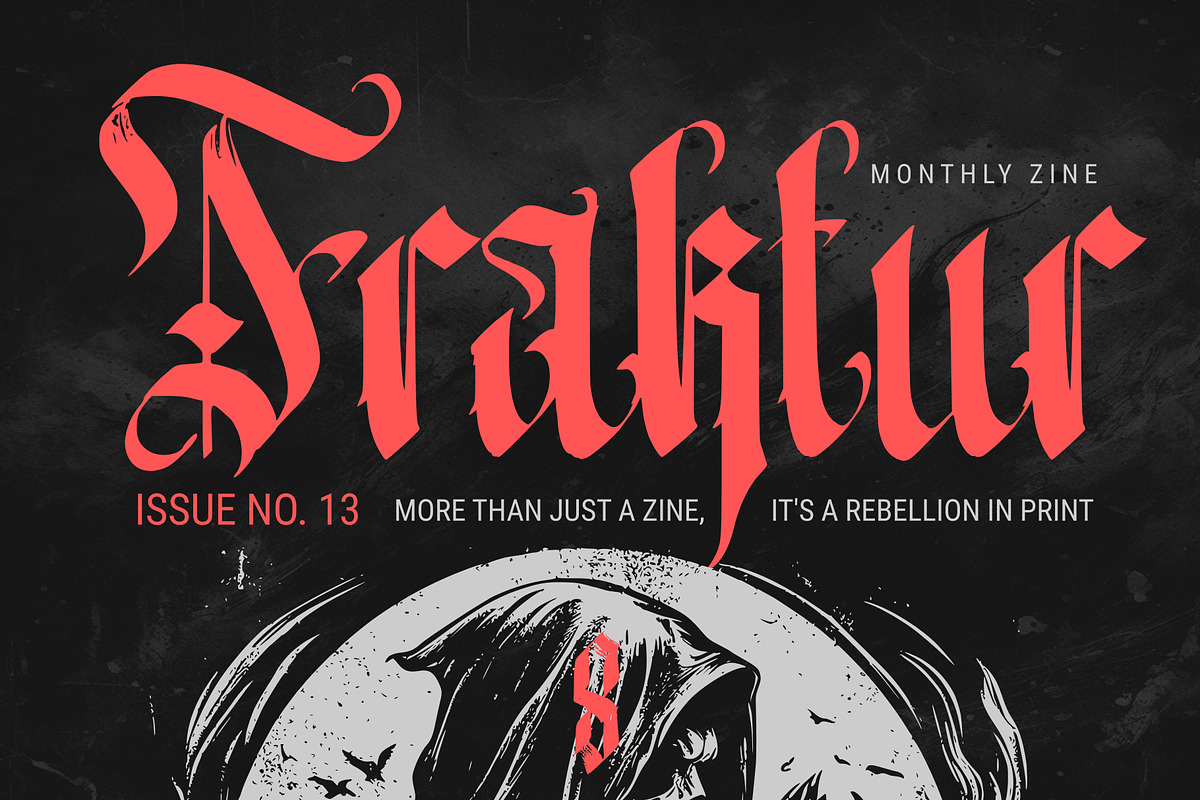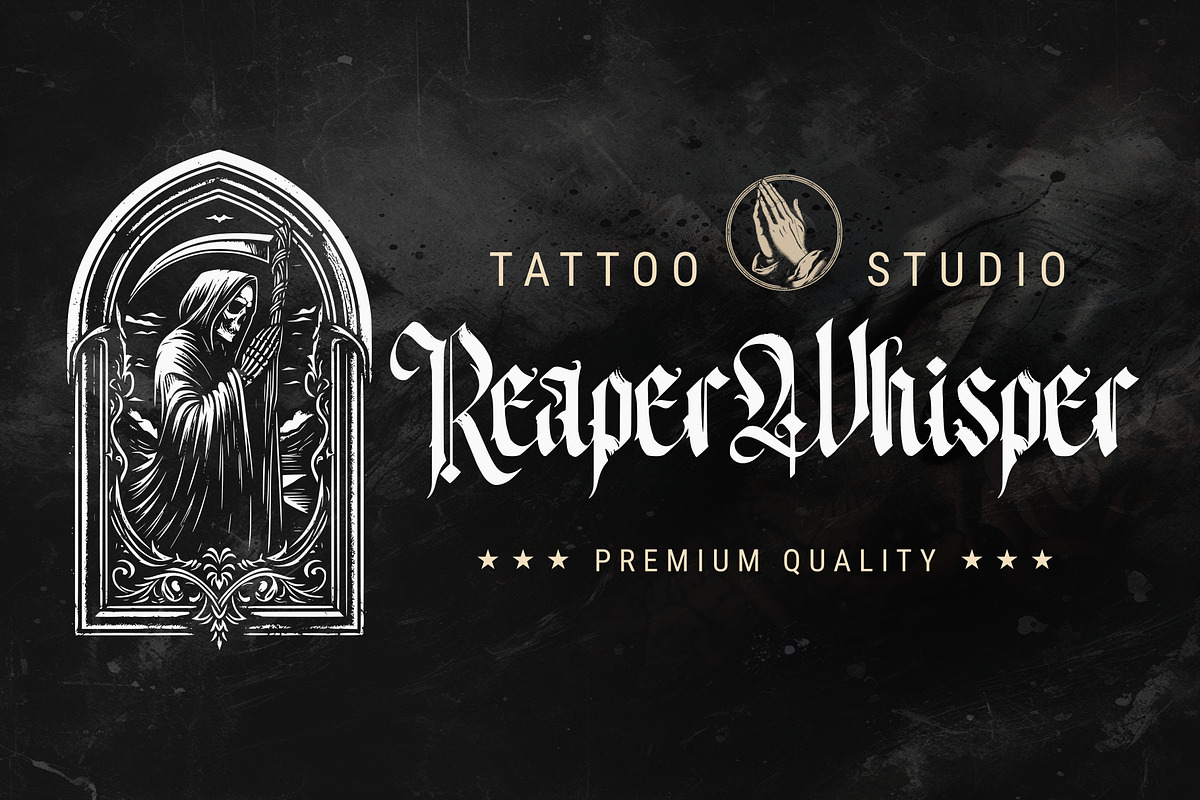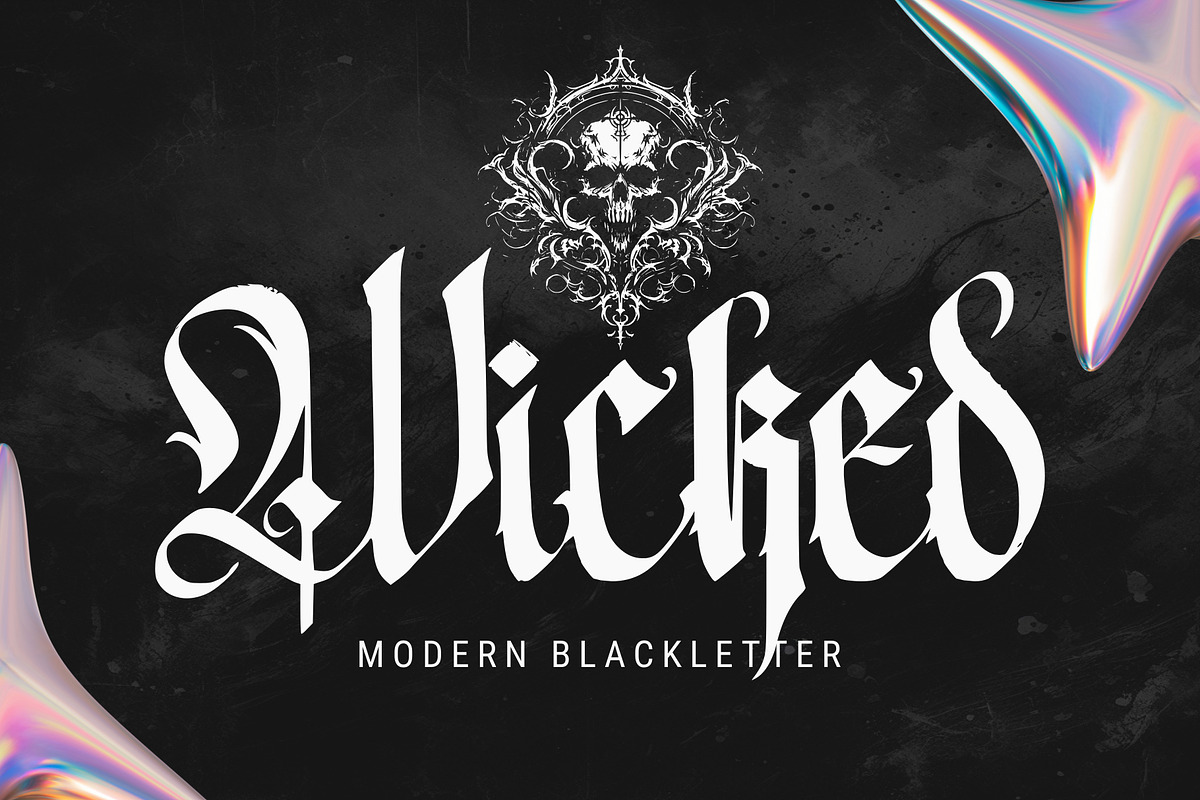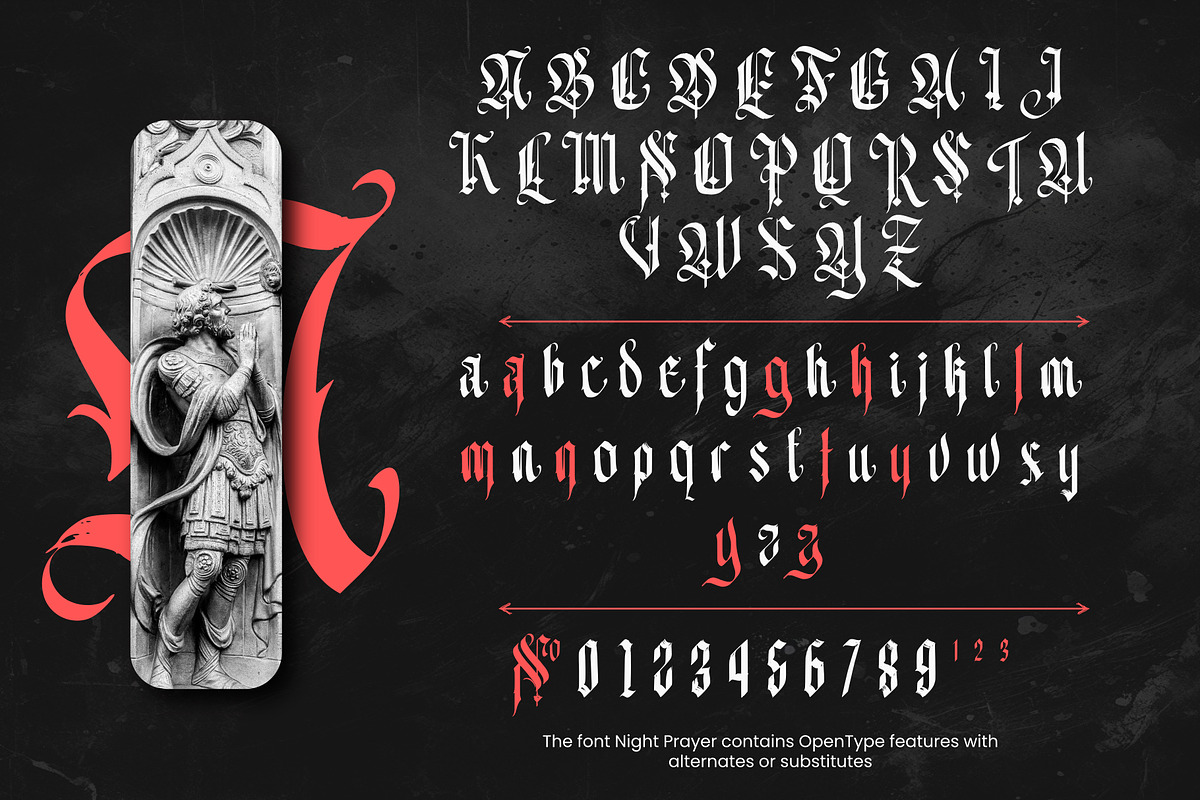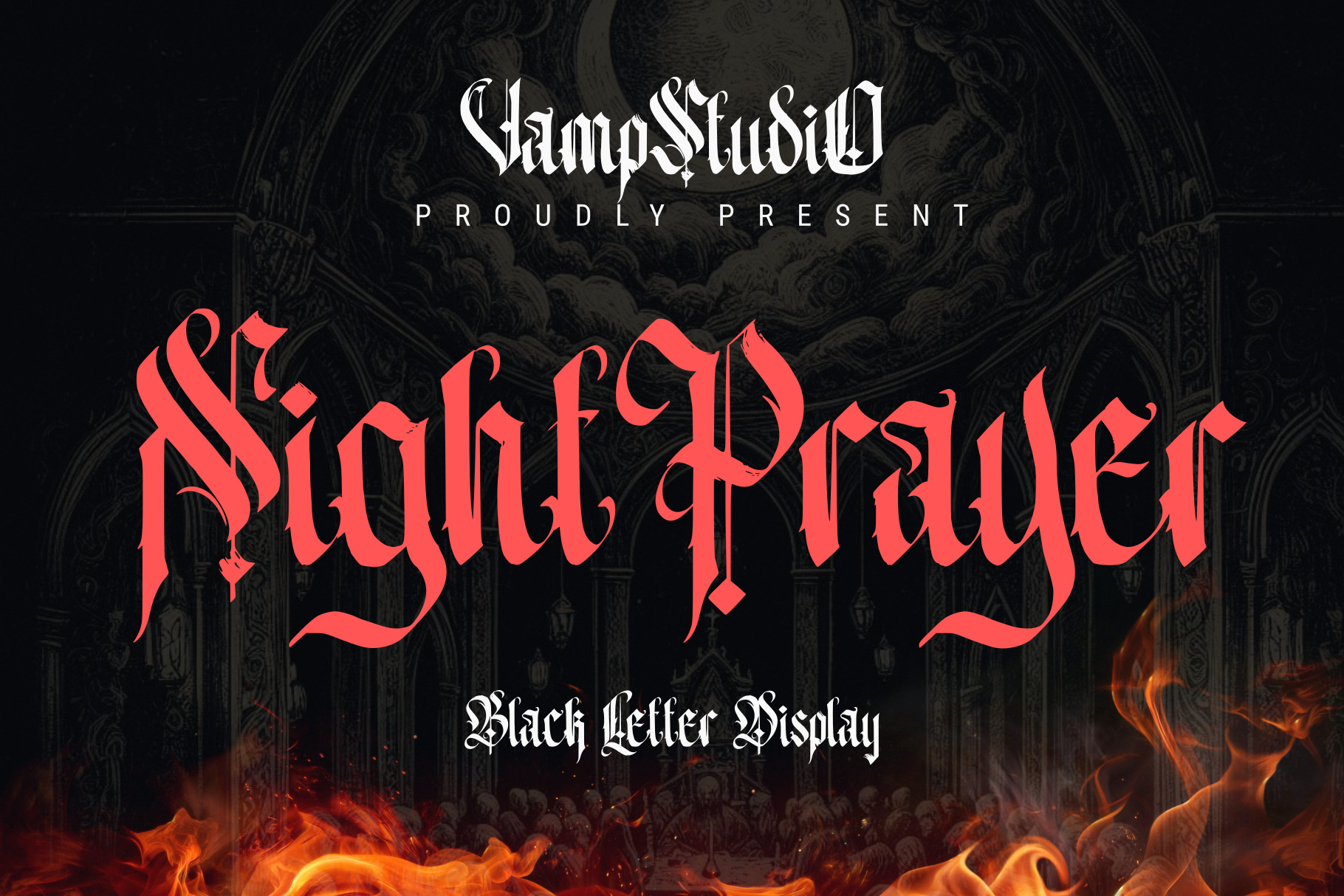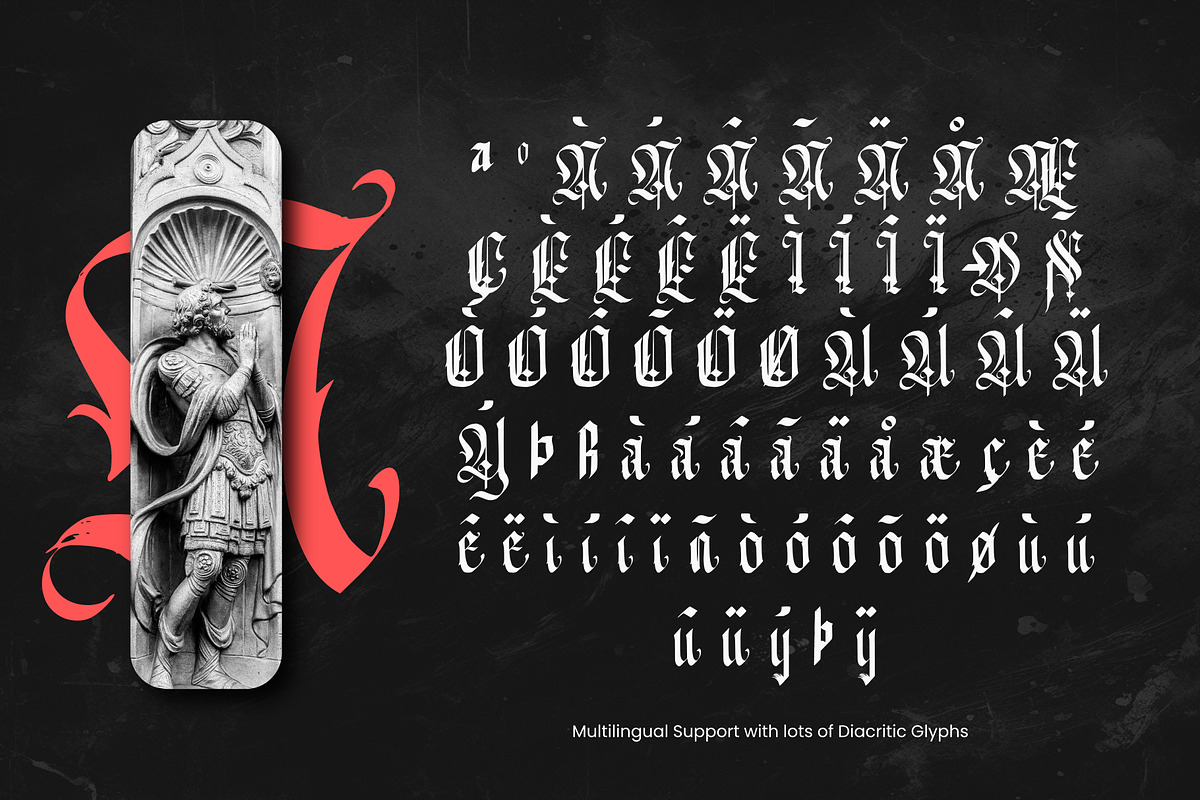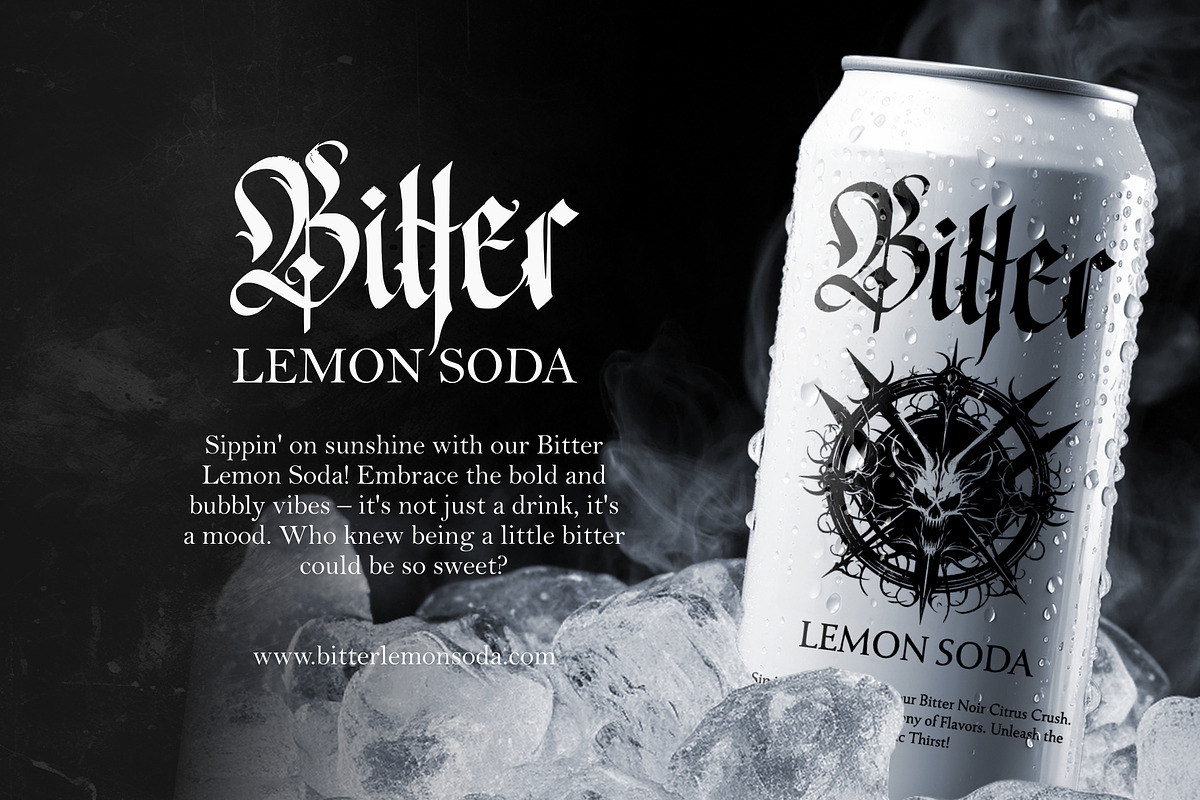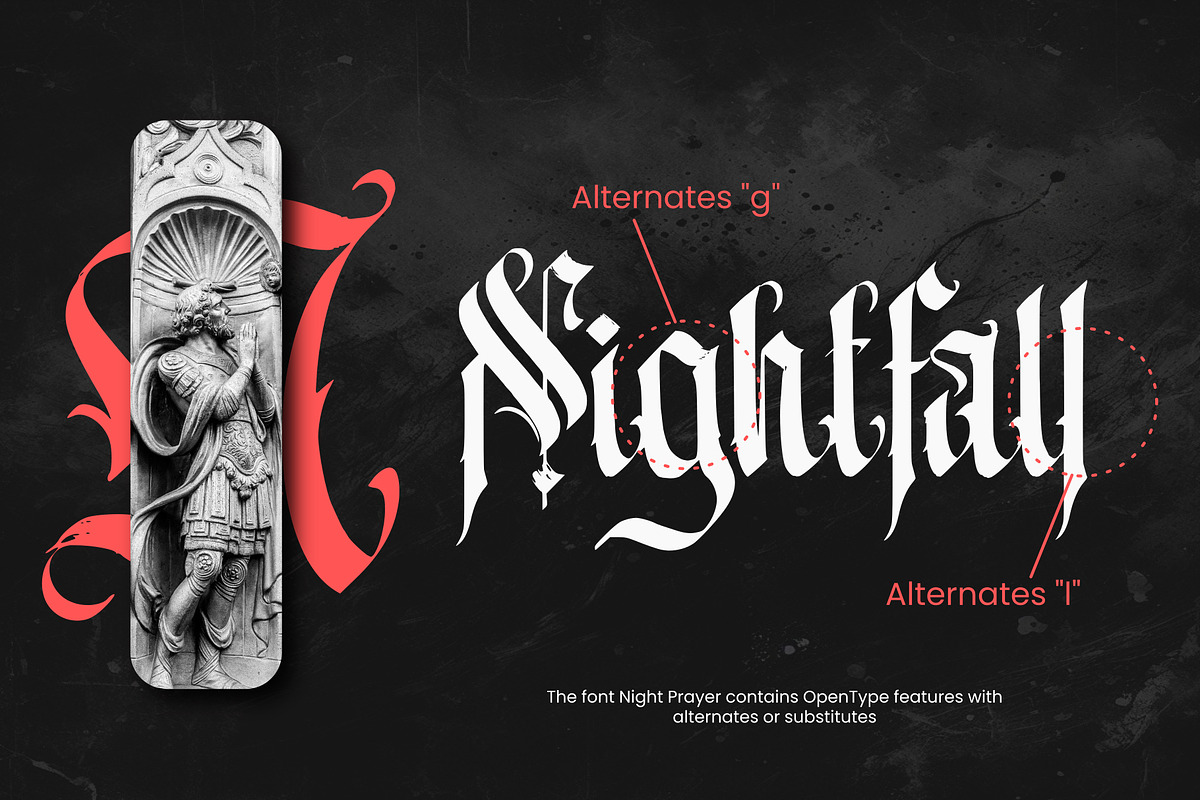
Night Prayer Blackletter Font
Introducing "Night Prayer" – Embrace the Timeless Elegance of Blackletter in Display Typography!
Step into a world of classic sophistication with "Night Prayer," a striking blackletter font designed to infuse your designs with an aura of historical grandeur and timeless elegance.
- Timeless Blackletter Style: Night Prayer embodies the beauty and tradition of blackletter typography, adding a touch of historical charm to your designs.
- Distinctive Display: Whether for posters, headlines, or branding materials, Night Prayer commands attention with its bold and ornate characters.
- Elegant Flourishes: Each letter is crafted with intricate details, exuding an air of sophistication and artistic allure
Night Prayer is perfect for branding projects, logo, wedding designs, social media posts, advertisements, product packaging, product designs, label, photography, watermark, invitation, stationery and any projects that need handwriting taste.